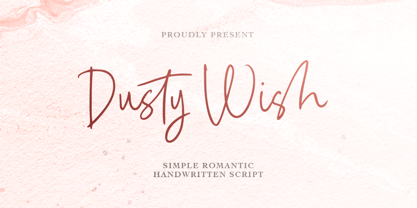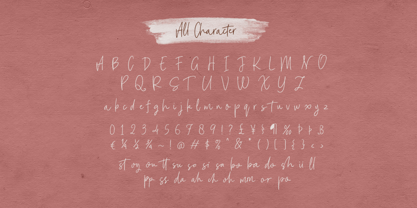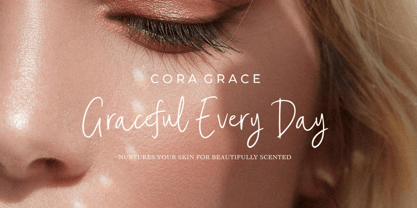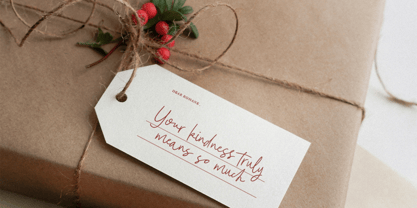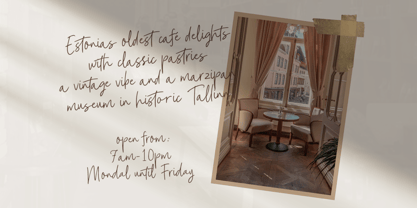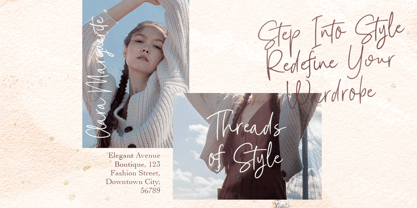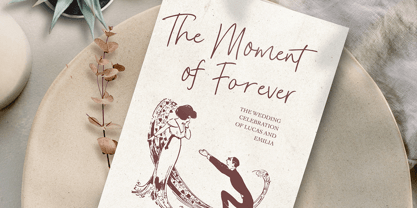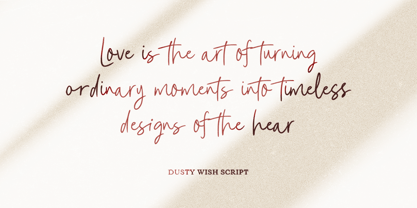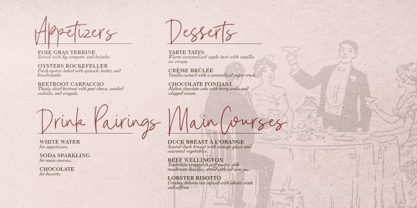
Dusty Wish
by Bale Type
The Dusty Wish Font Family was designed by Sarid Ezra, Dzikrul Aulia and published by Bale Type. Dusty Wish contains 1 styles. More about this family
Dusty Wish is a simple and romantic handwritten font. You can use this font for any project, such as branding, quotes, logo, and for complimentary to your another font. You can get your design looks more manually handwritten. This font also support multi language.
Designers: Sarid Ezra, Dzikrul Aulia